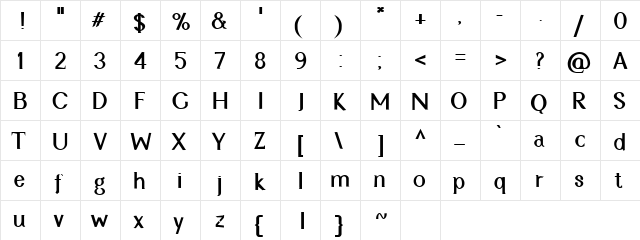
Cyn Bold
Design Context for Cyn Typeface
Cyn takes a measured approach to typography — its balanced proportions and neutral character make it a reliable workhorse for both digital and print work. The heavy weight commands attention and anchors typographic hierarchies.